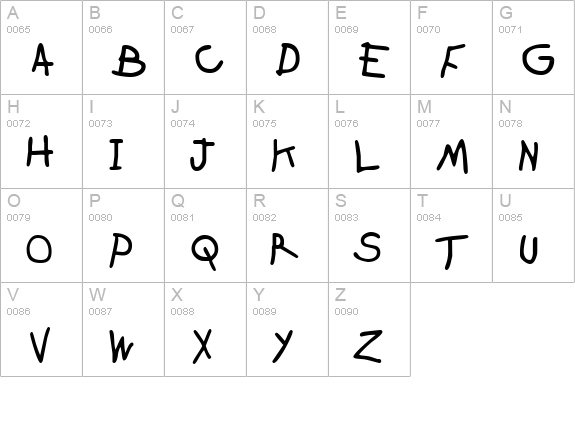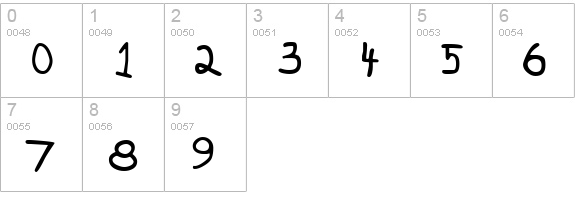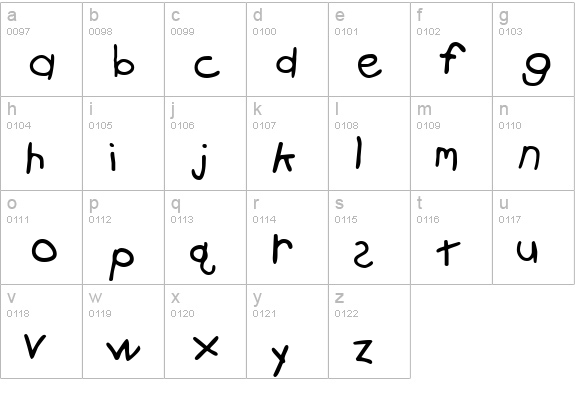
Crayon Font Details
The Crayon font is a whimsical and playful typeface that captures the essence of childhood nostalgia and creativity. Its hand-drawn strokes and irregular lines mimic the look of crayon drawings, adding a fun and vibrant touch to any design. Whether you're looking to add a touch of whimsy to a project or evoke memories of carefree days spent coloring, the Crayon font is sure to deliver. Best of all, the Crayon font is available for free download at FontsMarket.com. Embrace your inner child and bring a splash of color to your designs with this charming and delightful typeface. Let your imagination run wild with the Crayon font!